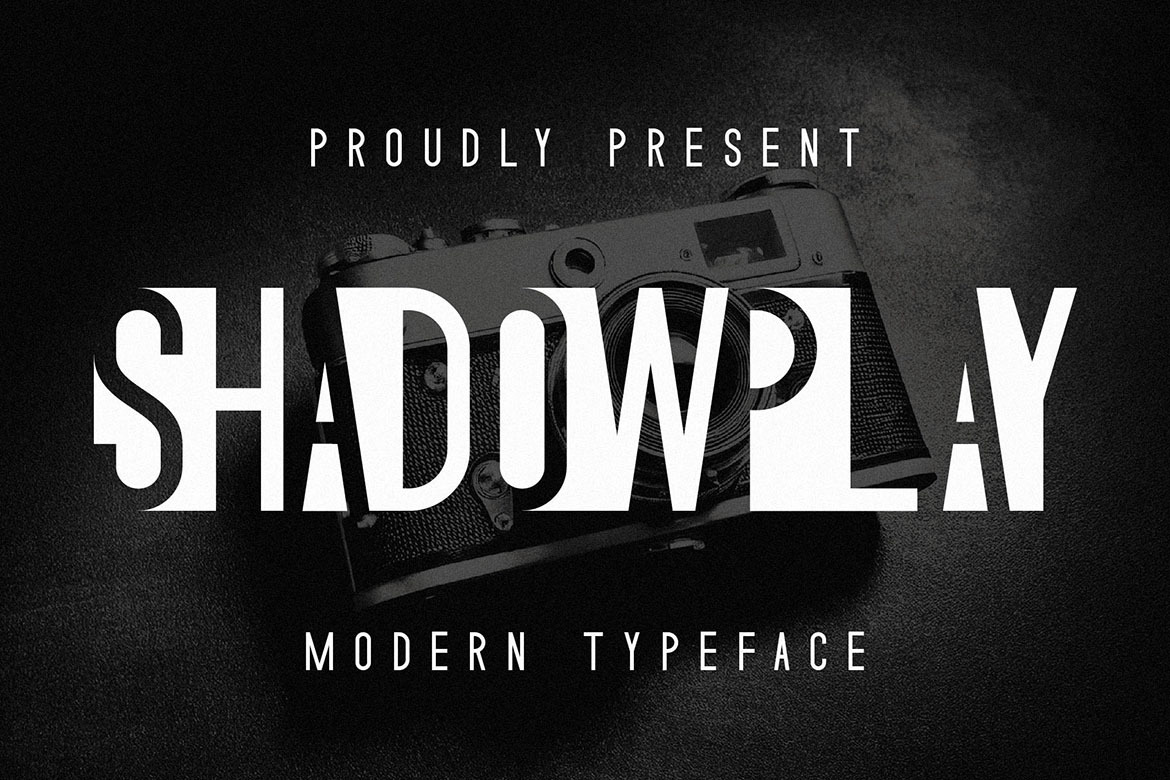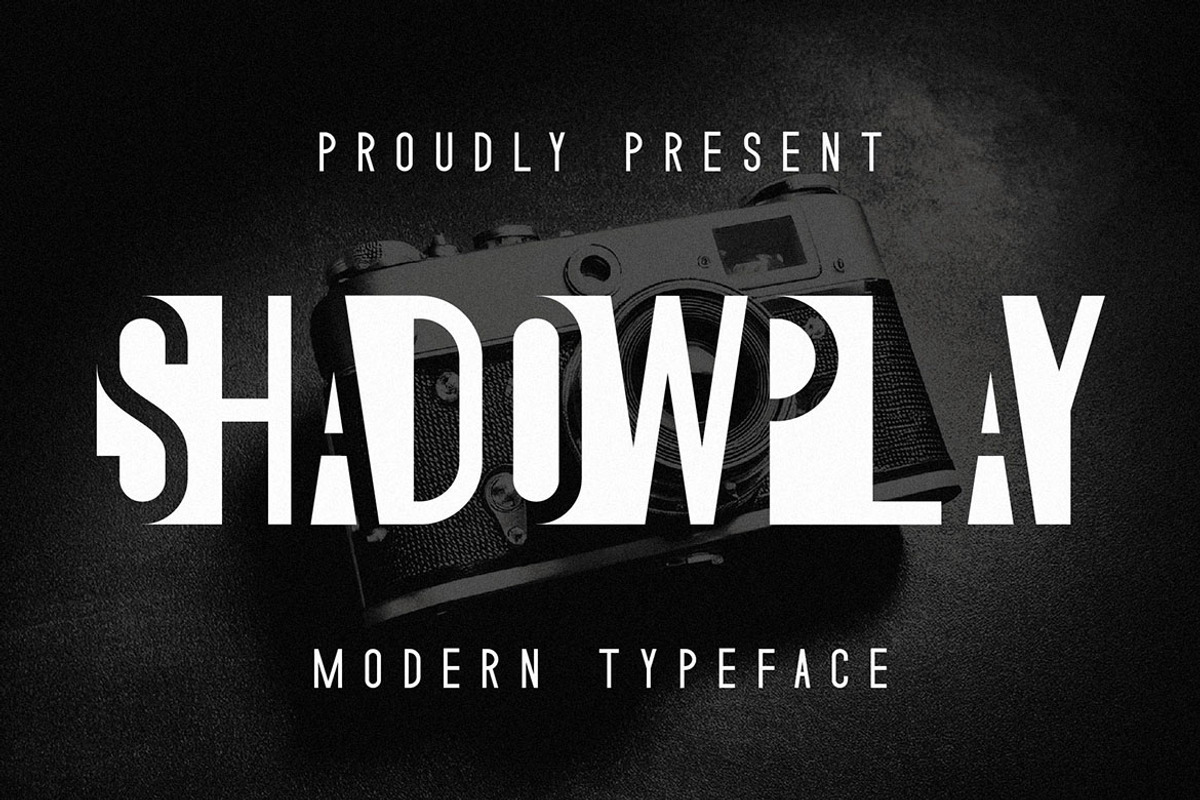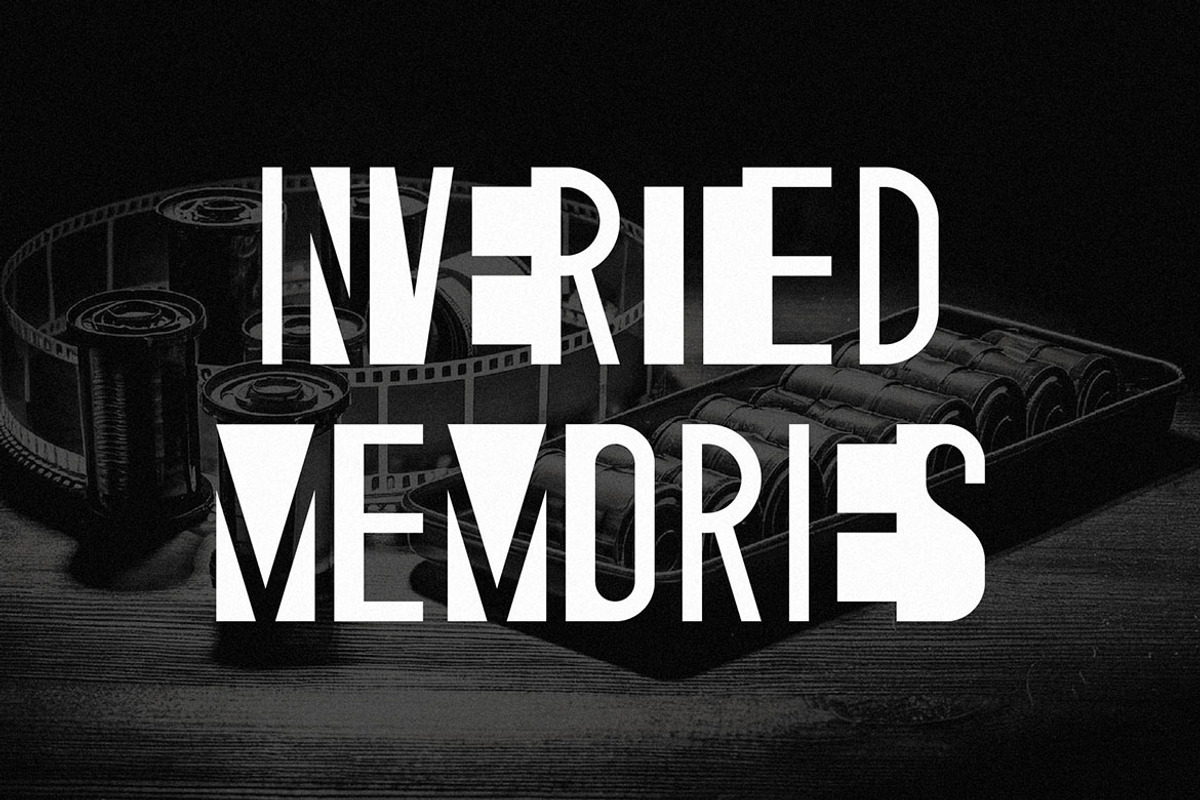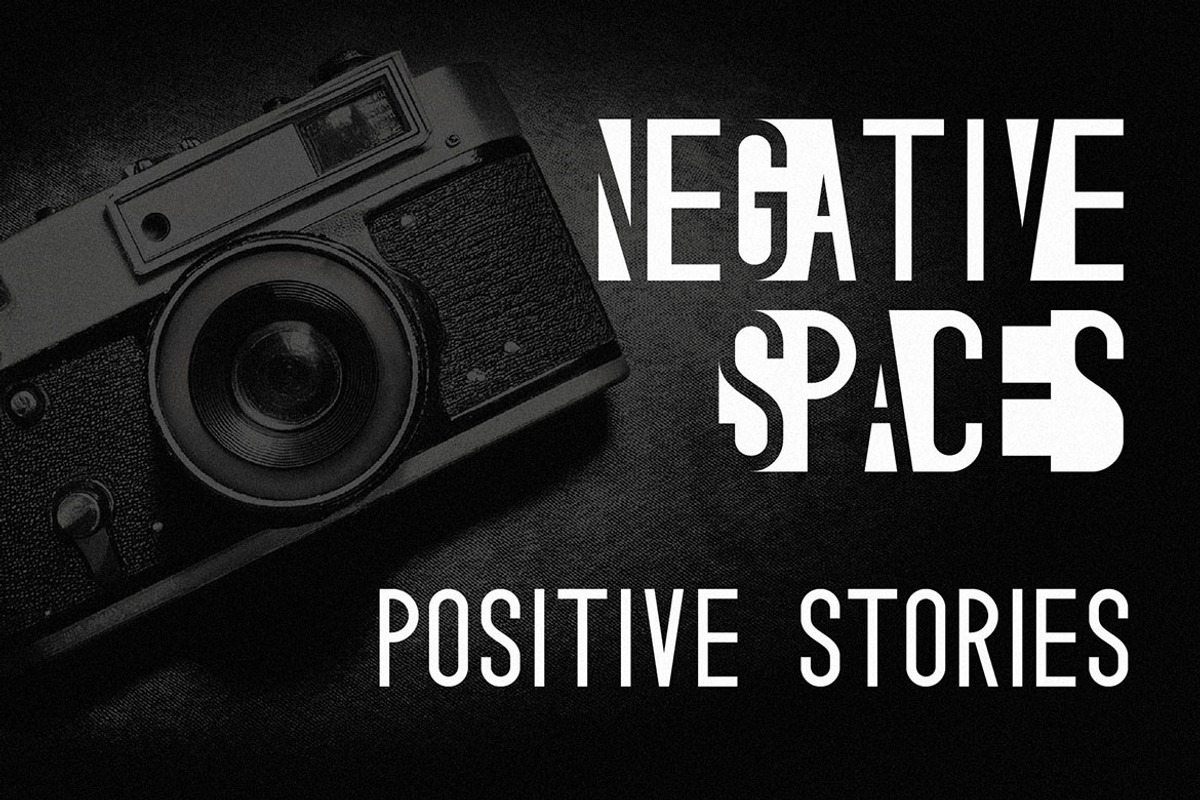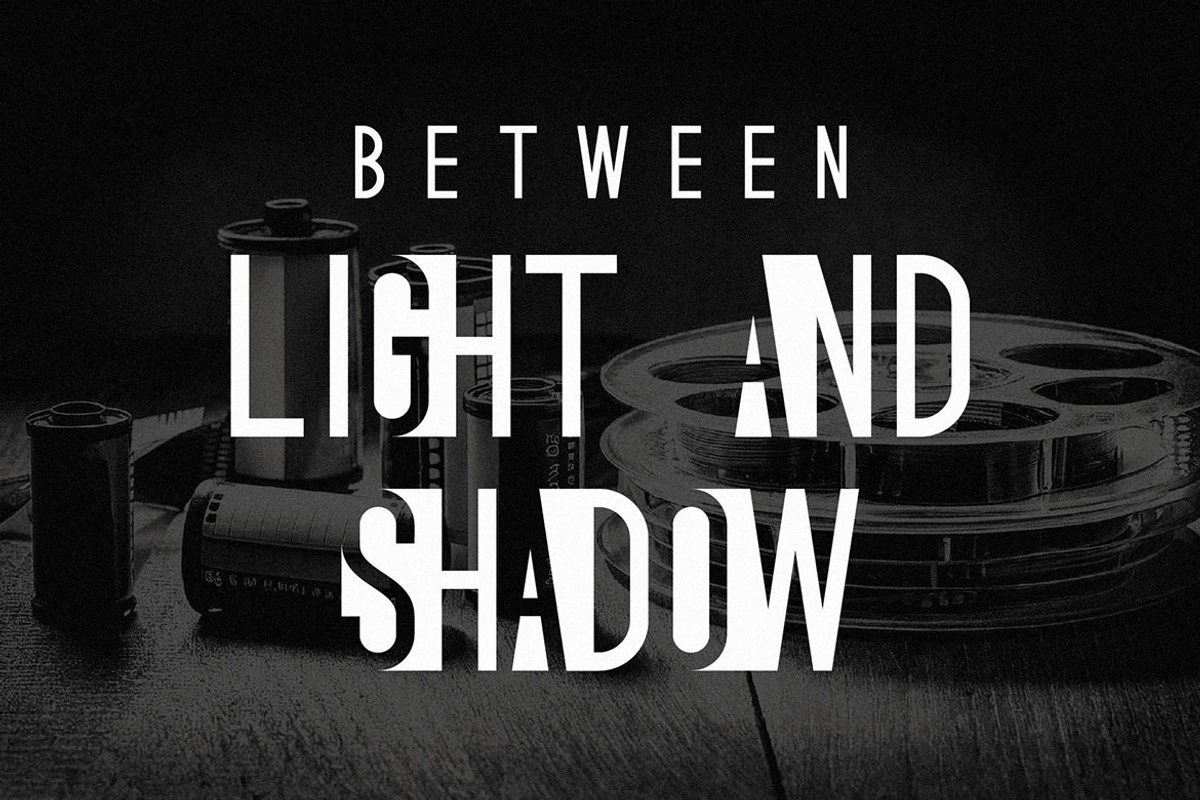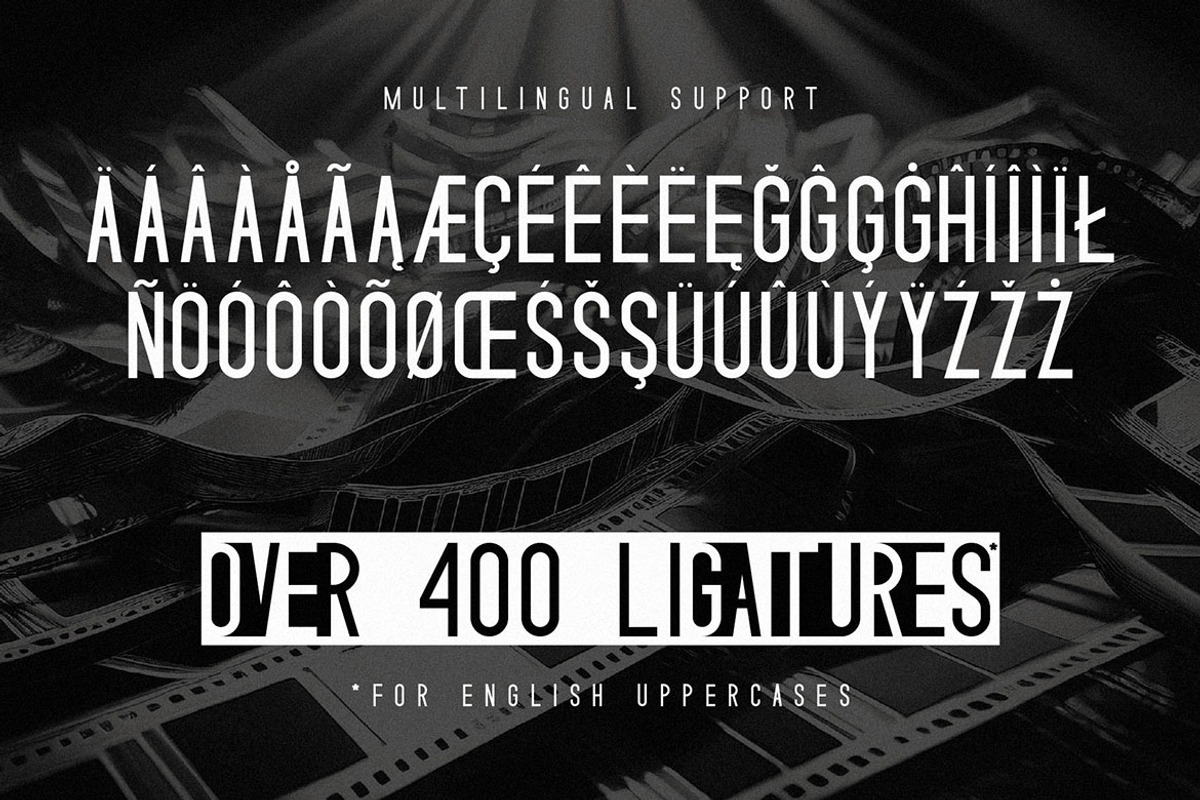
Shadow Play - Unique Display Font
Unique, futuristic, clean, sharp, simple & display sans serif font. Comes with multilingual support & lot of ligatures (400+) - great for your new logo, monogram or branding project.
- Multilingual support & 400+ ligatures
- Great for your new logo, monogram or branding project